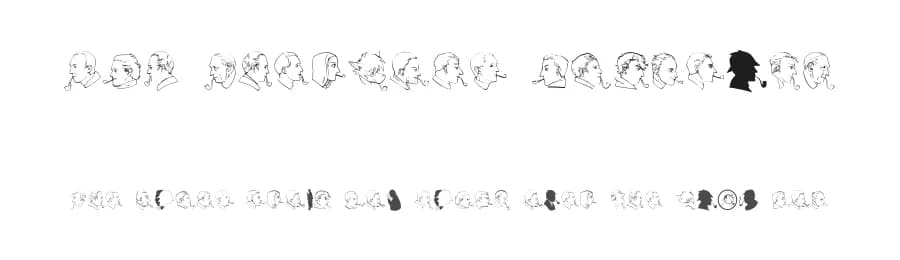
About JMH Sherlock Dingbats Font
JMH Sherlock Dingbats is a dingbat font designed by Jorge Morón. It includes 66 glyphs, a regular weight, OTF (CFF) format, and 89 languages. JMH Sherlock Dingbats is free to download; check the license details on this page before commercial use. Dingbat fonts like JMH Sherlock Dingbats work best for icons, ornaments, bullet points, and decorative accents.
JMH Sherlock Dingbats Font is a versatile dingbats font that works for both headings and body text. Pair it with a contrasting sans-serif or serif font to add visual interest and a clear distinction between titles and body copy.
JMH Sherlock Dingbats Font
by Jorge Morón
JMH Sherlock Dingbats Font is a dingbats typeface by Jorge Morón, ideal for logos, invitations, branding, and creative projects.